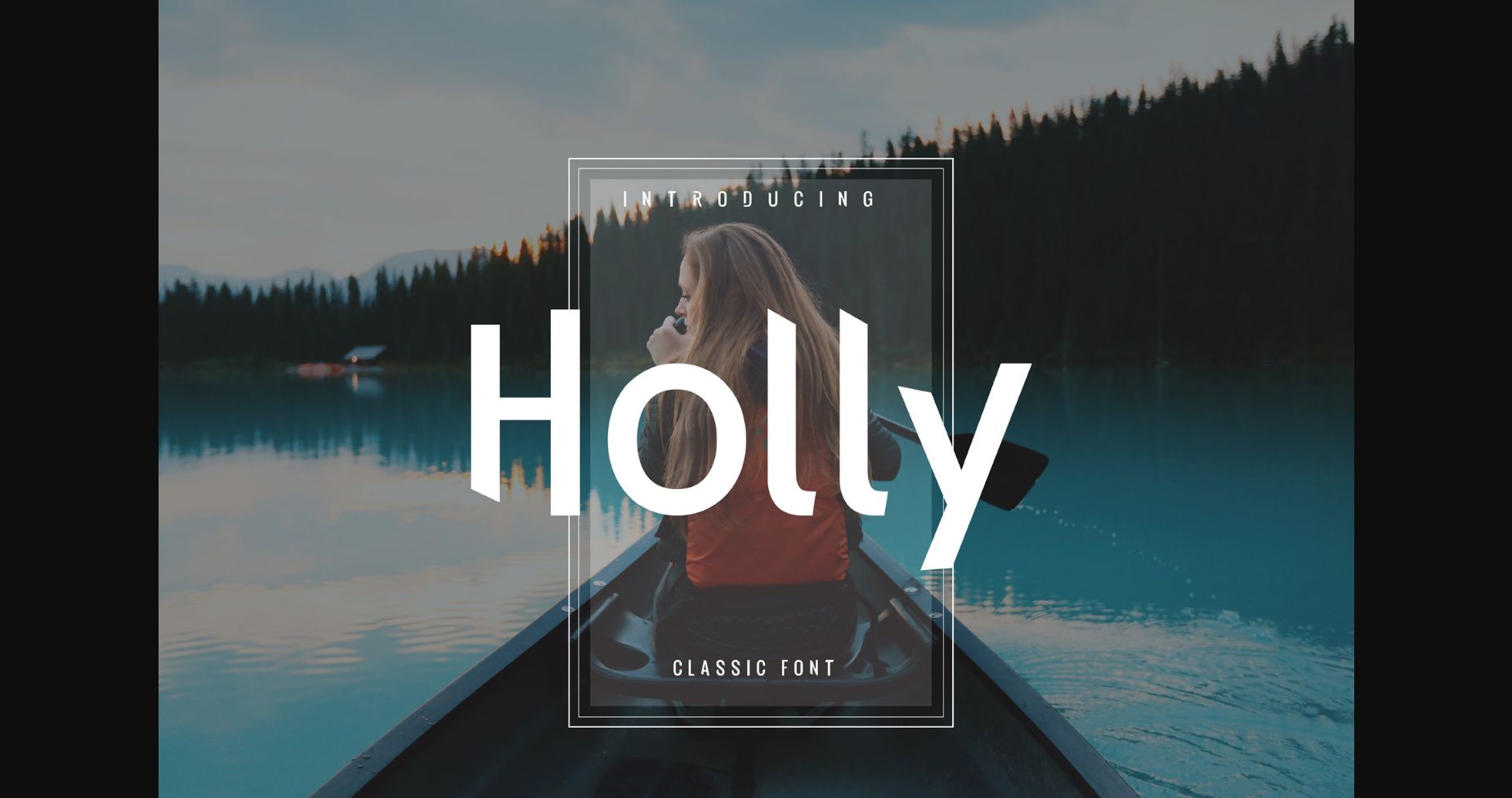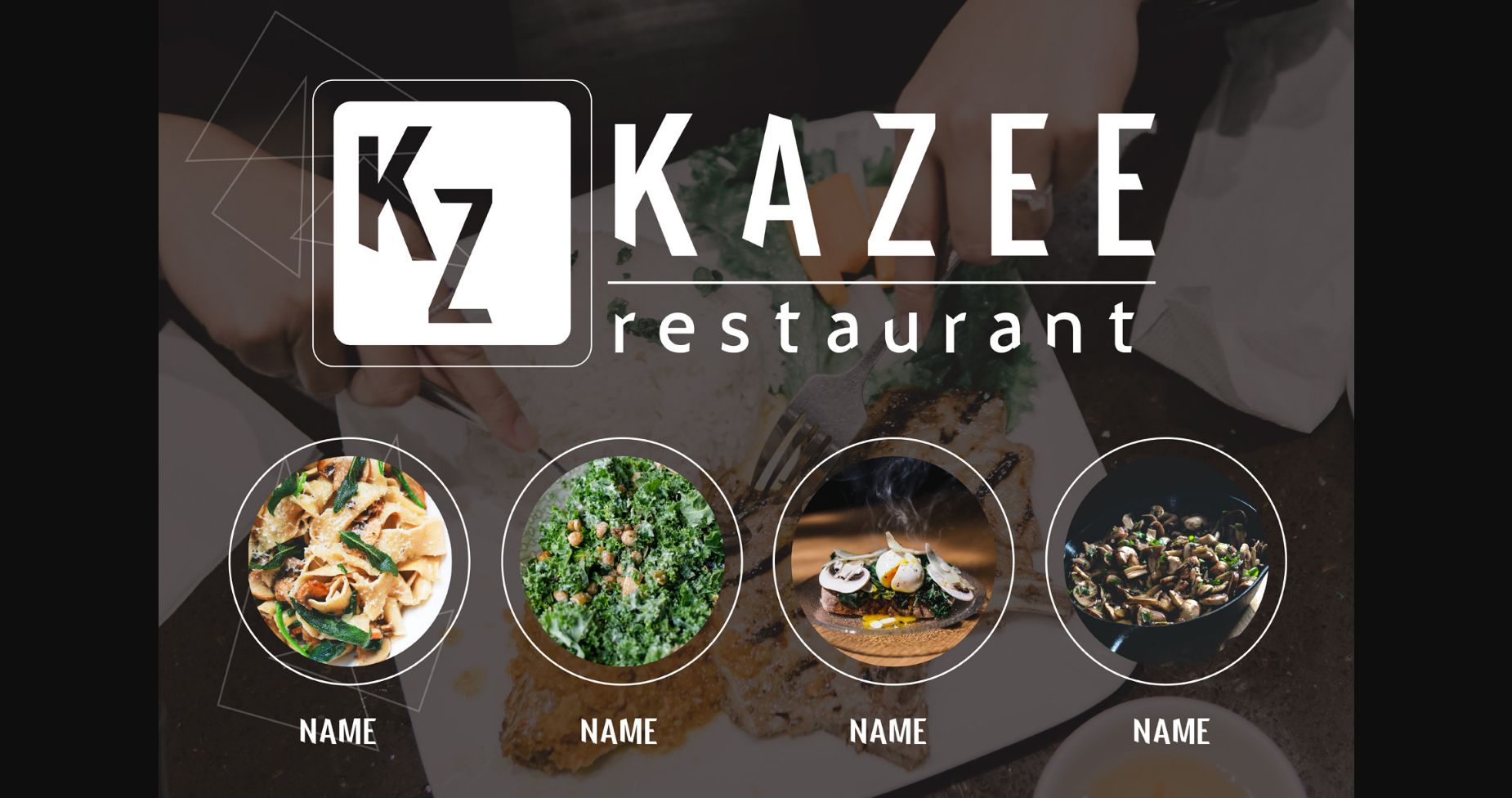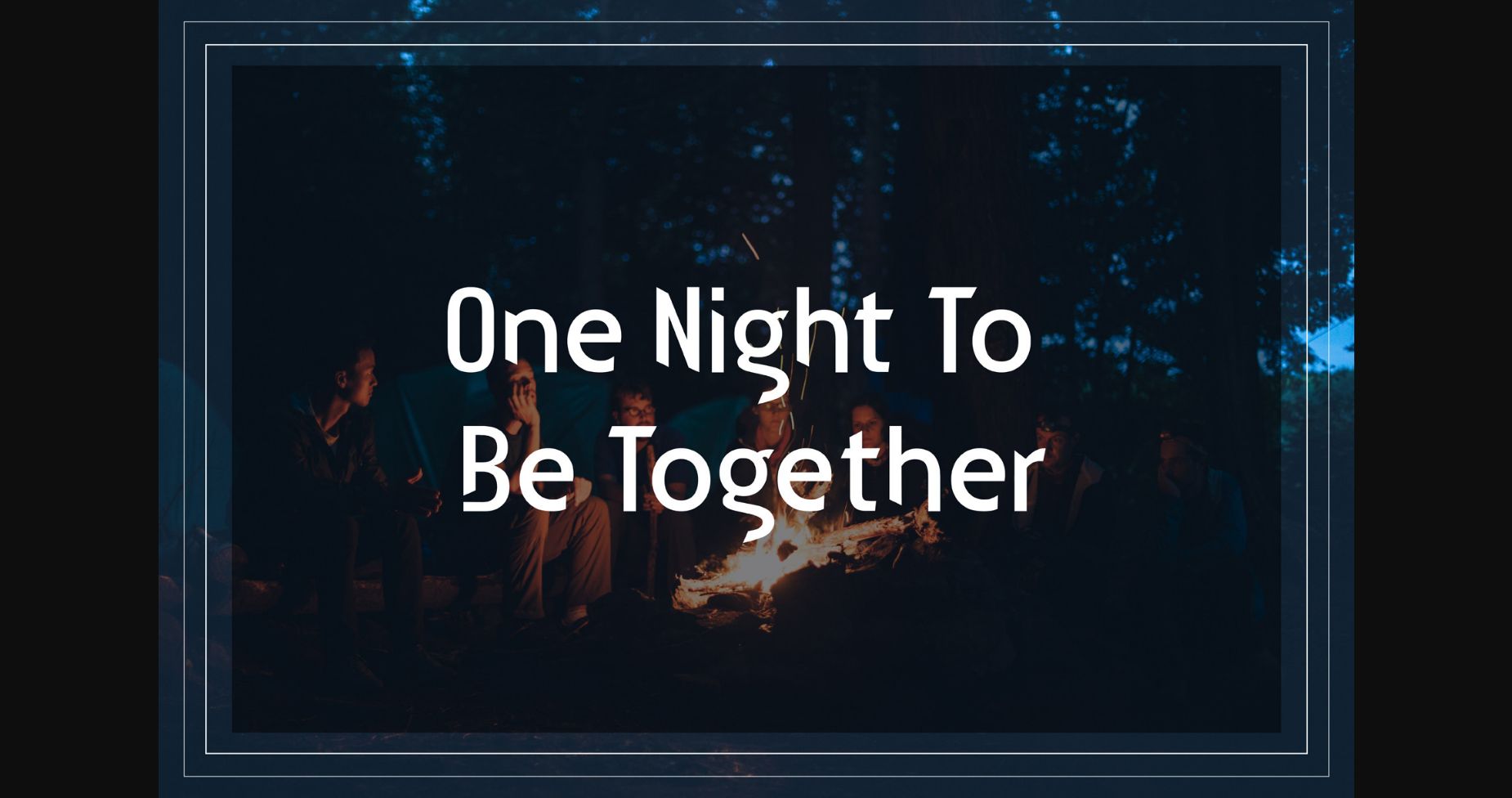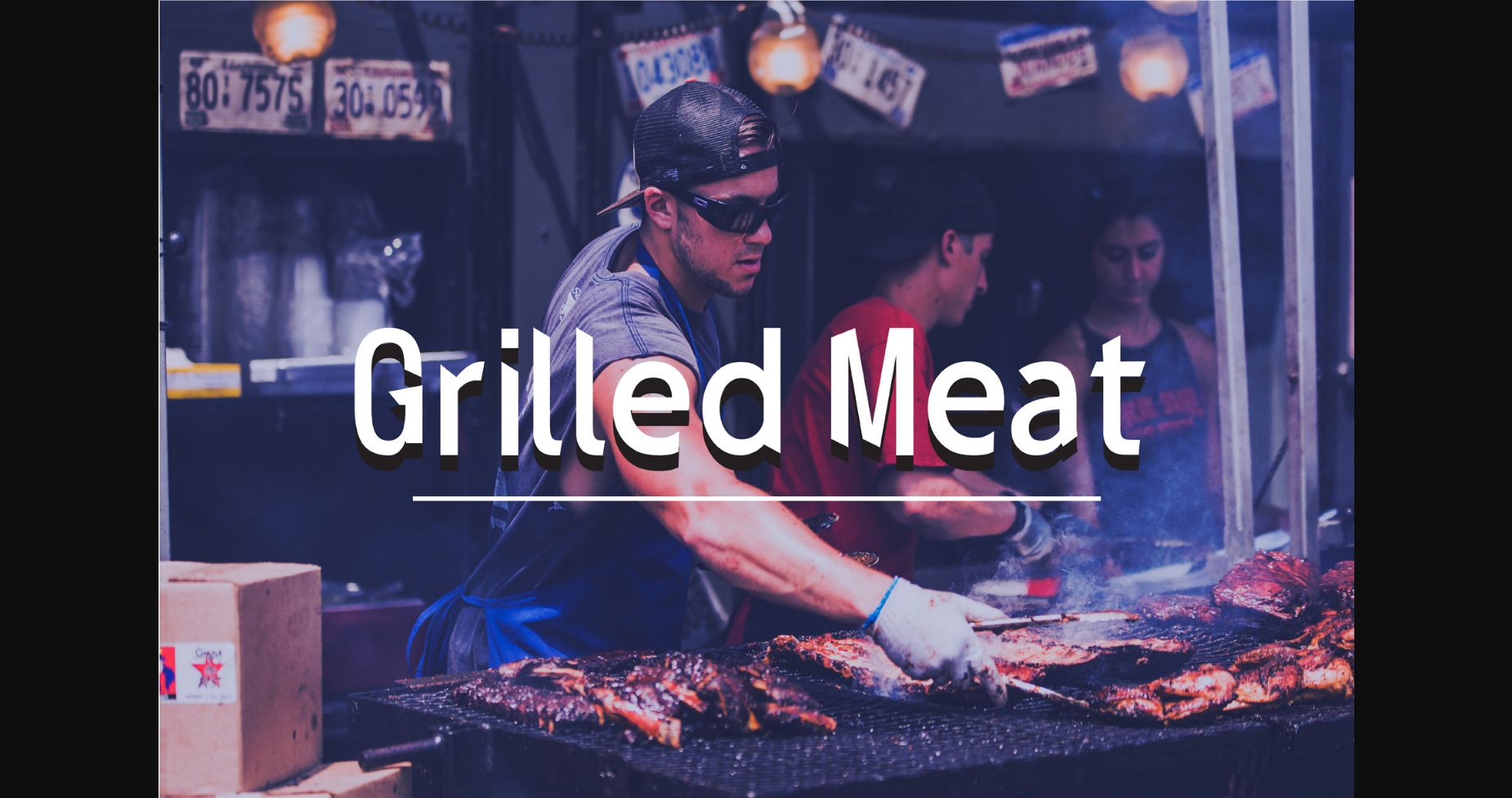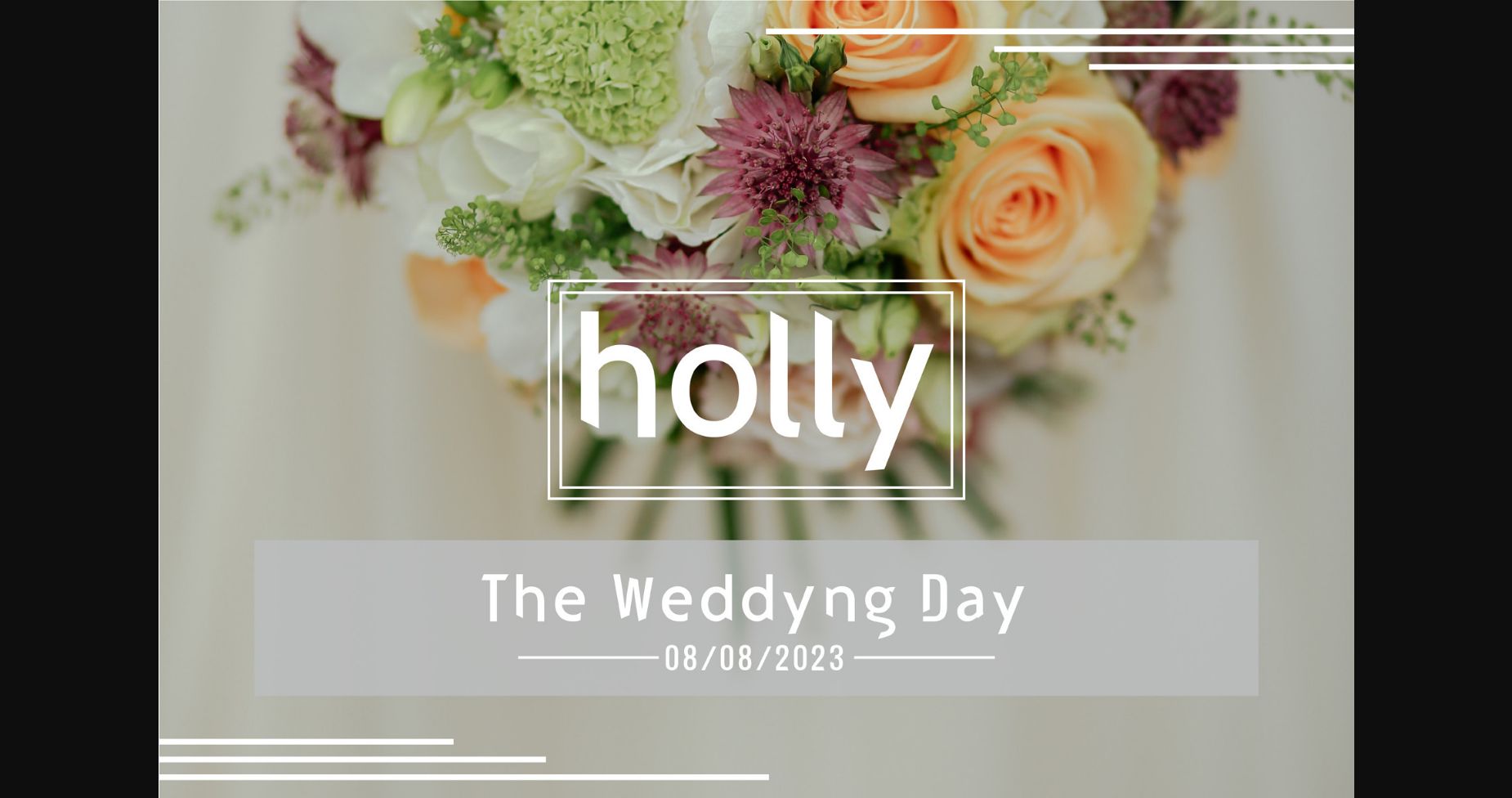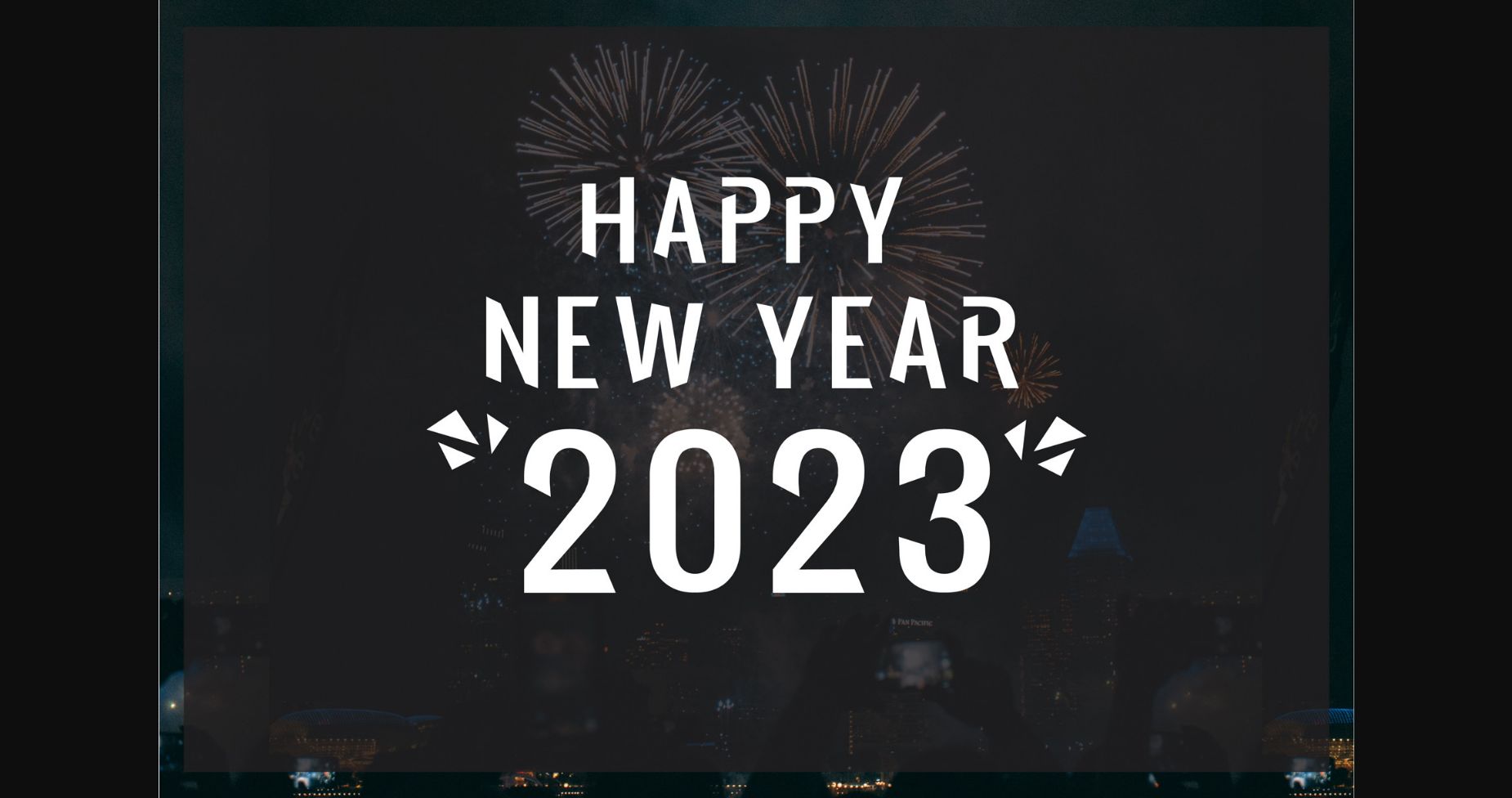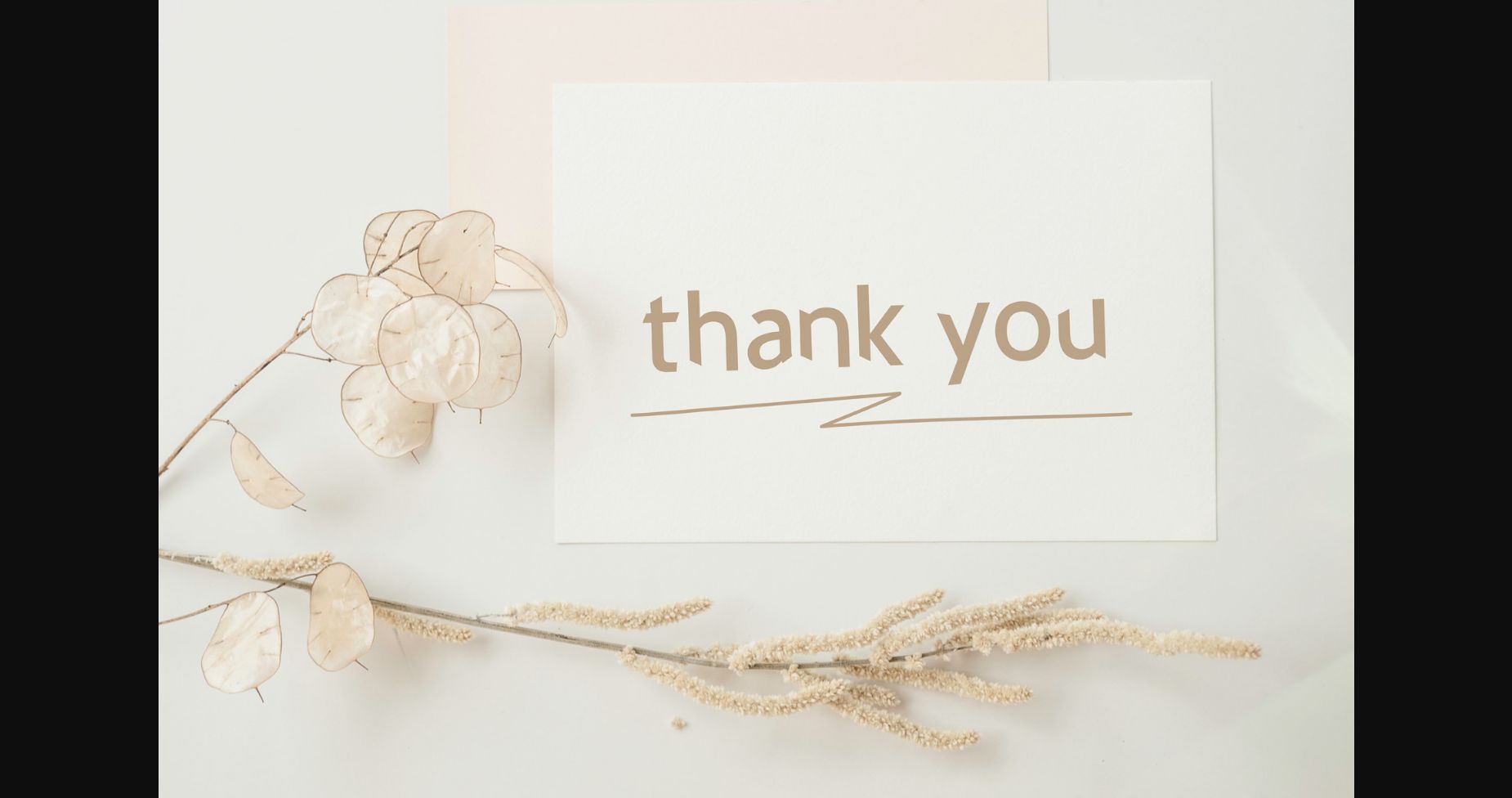
Holly Font
About Holly Font
Holly is a bold, eye-catching typeface that comes in a sans-serif look with great contrast, providing great readability. Holly is a great choice for large-size designs, headlines, posters, billboards, magazines, advertisements, etc.